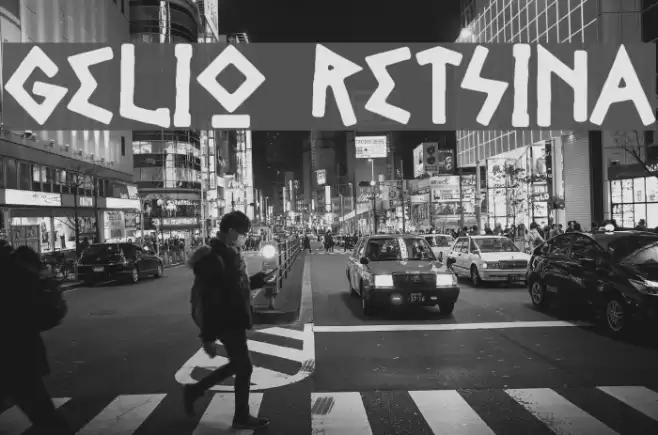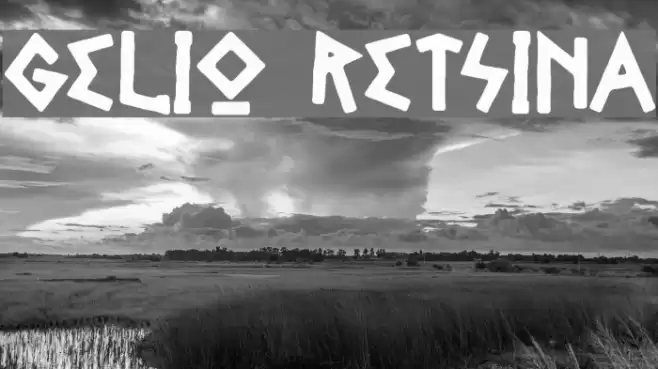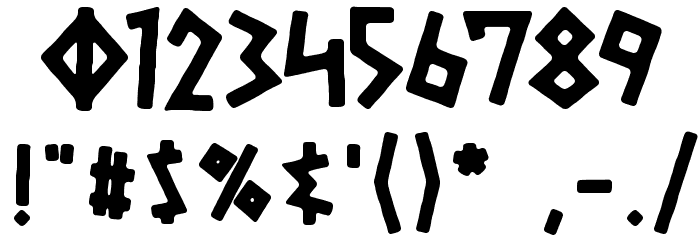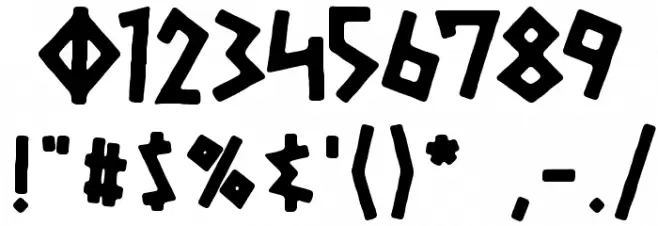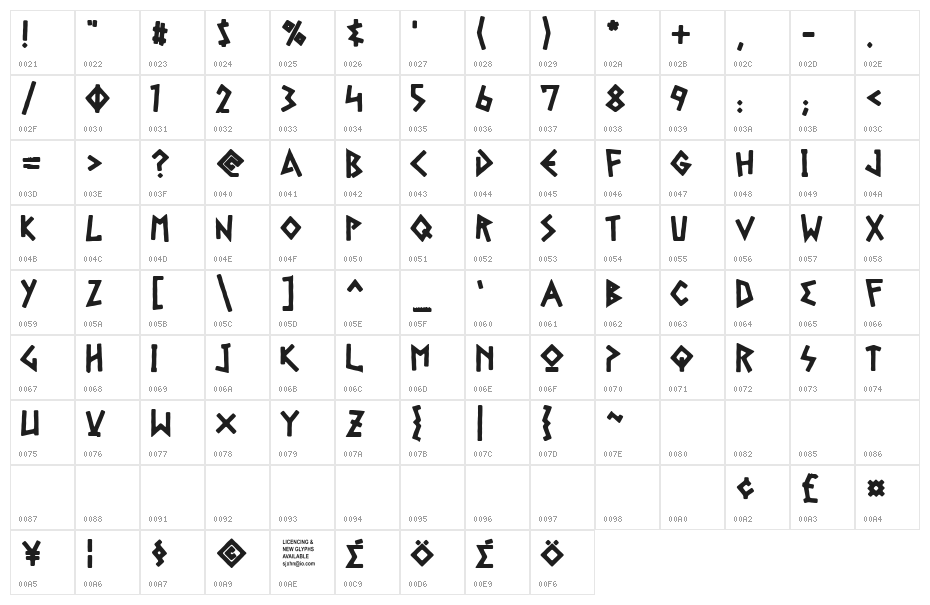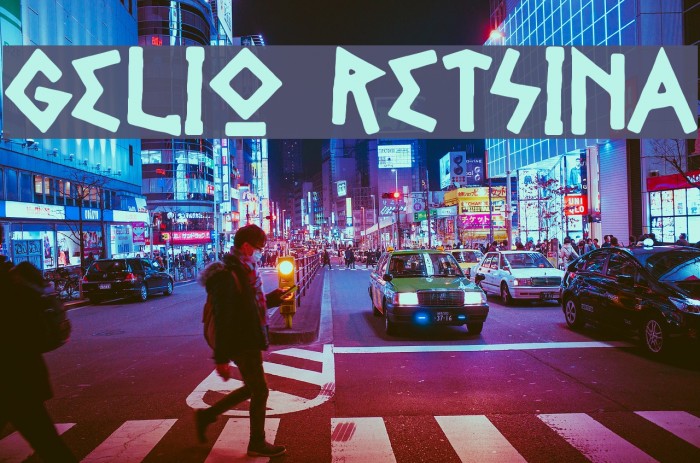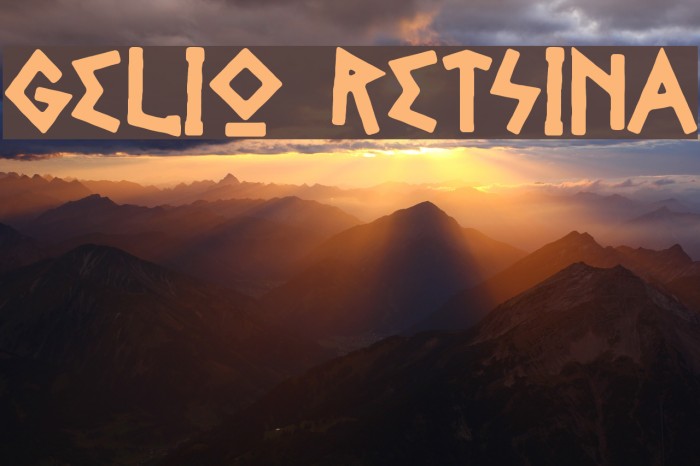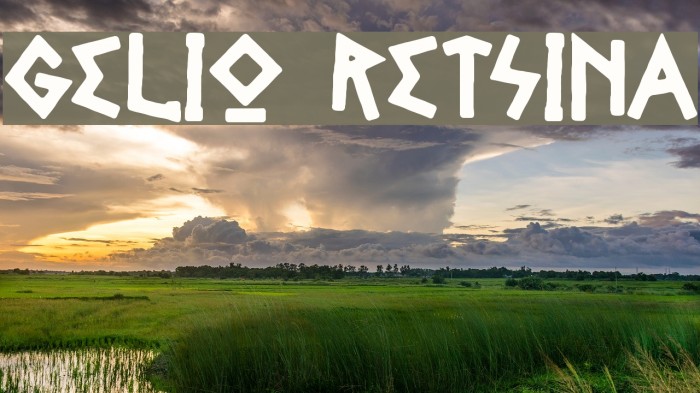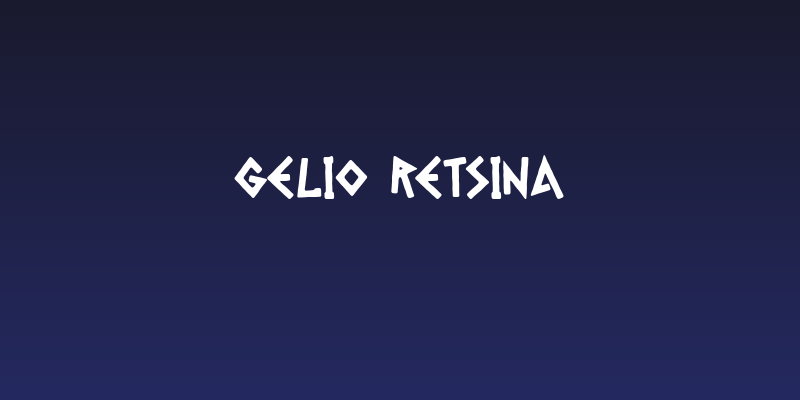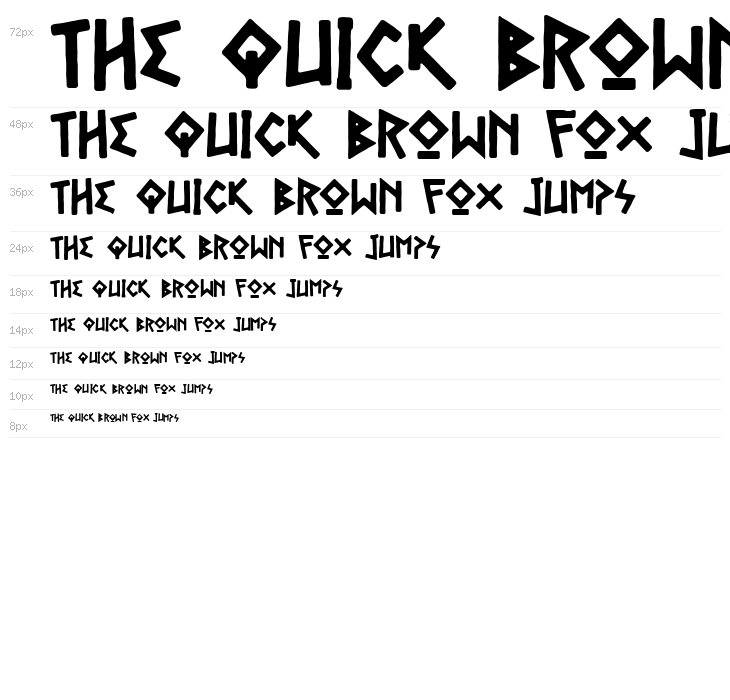
Gelio Retsina Font
Gelio Retsina Description
This font features a bold and playful design with a hand-drawn aesthetic. The characters are irregular and slightly tilted, giving them a dynamic and energetic feel. The strokes are thick and consistent, creating a strong visual impact. The uppercase and lowercase letters maintain a uniform style, while the numbers and special characters are equally bold and expressive. This font is ideal for projects that require a fun and informal touch, such as children's books, posters, and creative branding.
A bold, playful font with a hand-drawn, dynamic style from Uncategorized fonts.
- Proposed Projects: Children's books, posters, creative branding, playful invitations.
- Overall Style: Playful, Hand-drawn
- Use Case: Headlines, Posters, Creative projects